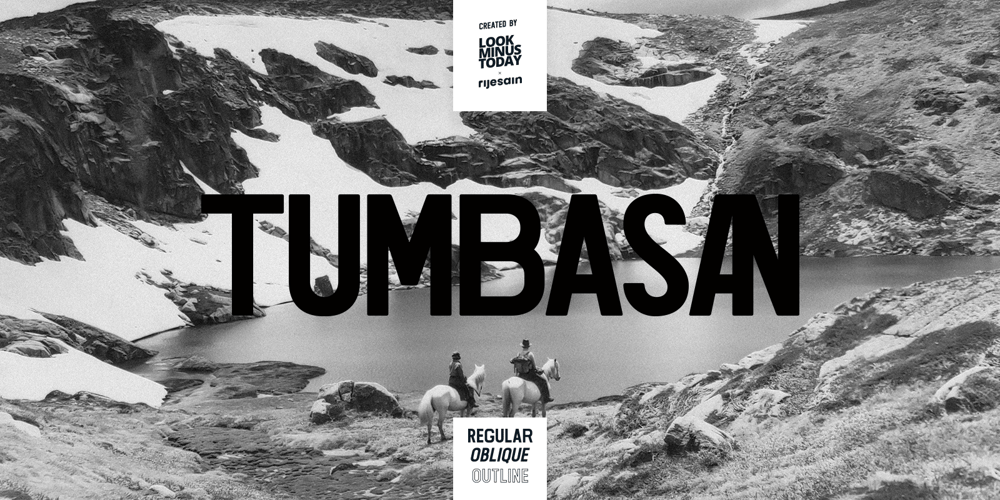
Tumbasan Font Family was designed by Arif Rijal and published by Look Minus Today. Tumbasan contains 2 styles and family package options. Introducing Tumbasan – Modern Minimalist Sans Serif by Look Minus Today.Tumbasan is designed with a modern and minimalist aesthetic in mind. This versatile font is perfect for all design needs, from print materials to digital media. Geometric shapes give it a contemporary feel that will add a touch of sophistication to any project.The font’s design is based on a simple and legible sans serif style, with just the right balance of thickness and spacing to ensure clarity and ease of reading. Its simple, elegant lines and smooth curves make it a great choice for a variety of design applications, including branding, advertising, packaging, and editorial design. Our modern and minimalist sans serif font is a versatile and stylish choice for any design project. Its clean lines, geometric shapes, and legibility make it an excellent choice for a wide range of applications, while its modern aesthetic ensures it will stand out and make a bold statement in any design.Features:- Uppercase- Lowercase- Alternates & Ligatures- Numerals & Punctuation- Multilingual & Symbol- HOW TO ACCESS ALTERNATE CHARACTERS- Open glyphs panel:In Adobe Illustrator go to Window – Type – glyphsIn Adobe Photoshop go to Window – glyphsFor any further questions or assistance, please feel free to contact us at look.minus.today@gmail.comThank you and have a nice day!